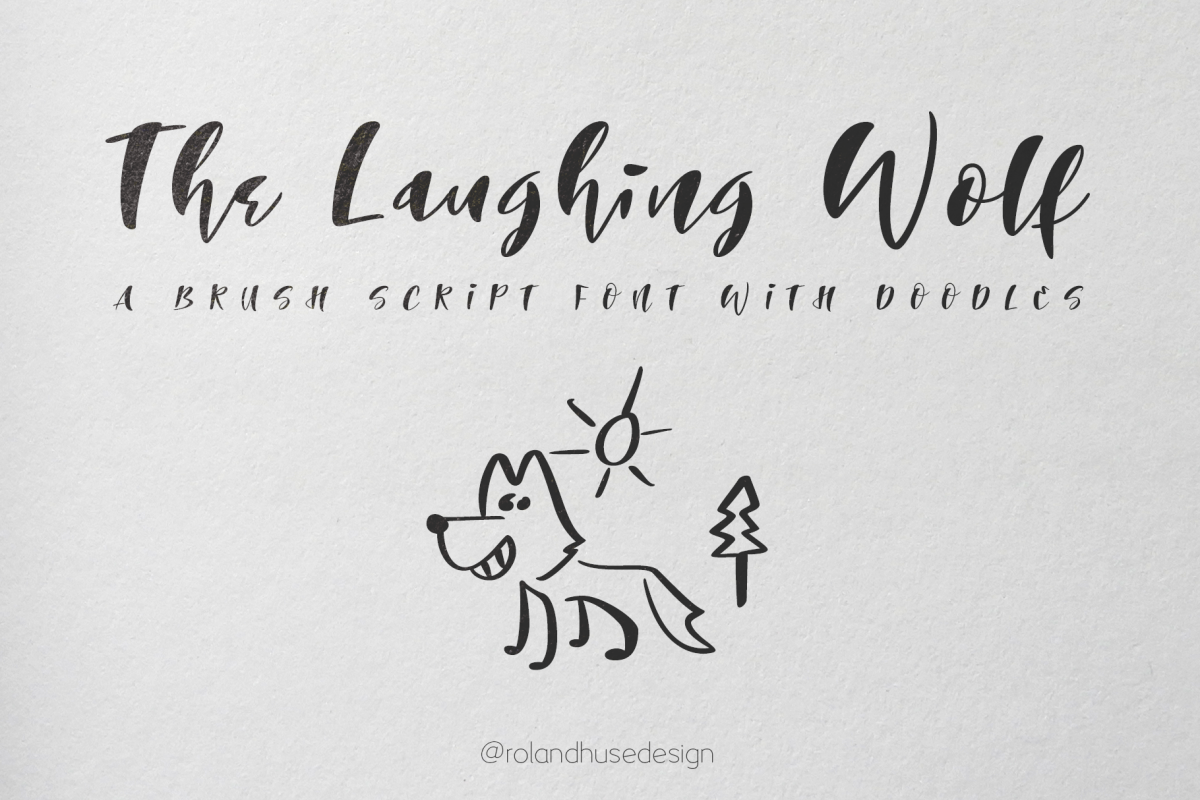
The Laughing Wolf
THE LAUGHING WOLF is a brush / iPad script font. Carefully designed, clean vectors with Glyphs App.
There are 7 Wolf doodles included in place of the bulletpoint character and its stylistic set
The font contains all Western and Eastern European langiuage accents and characters.